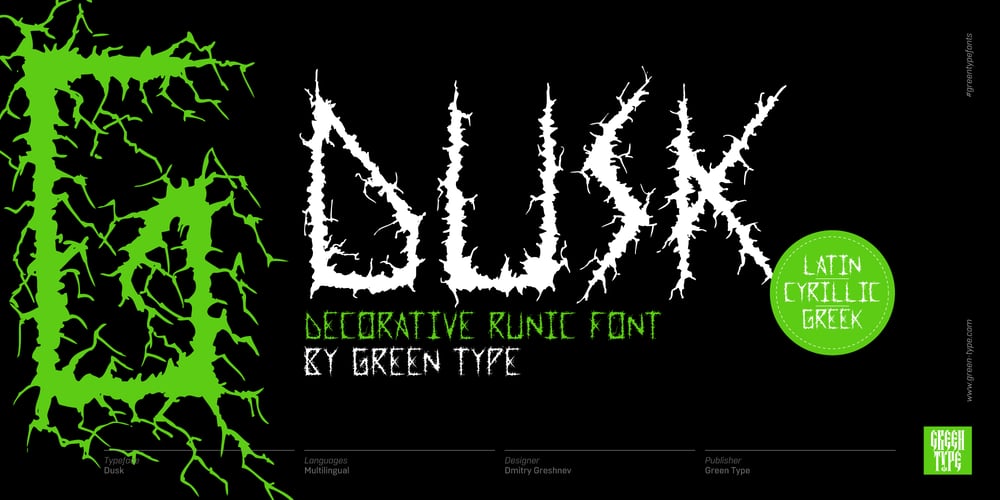
Dusk Font Family was designed by Dmitry Greshnev and published by Green Type. Dusk contains 3 styles and family package options. Dusk is a decorative font based on runic formulas. It has 3 styles, and supports Latin, Cyrillic and Greek.